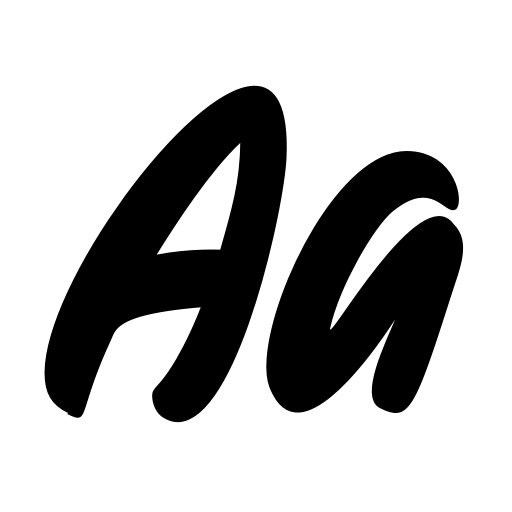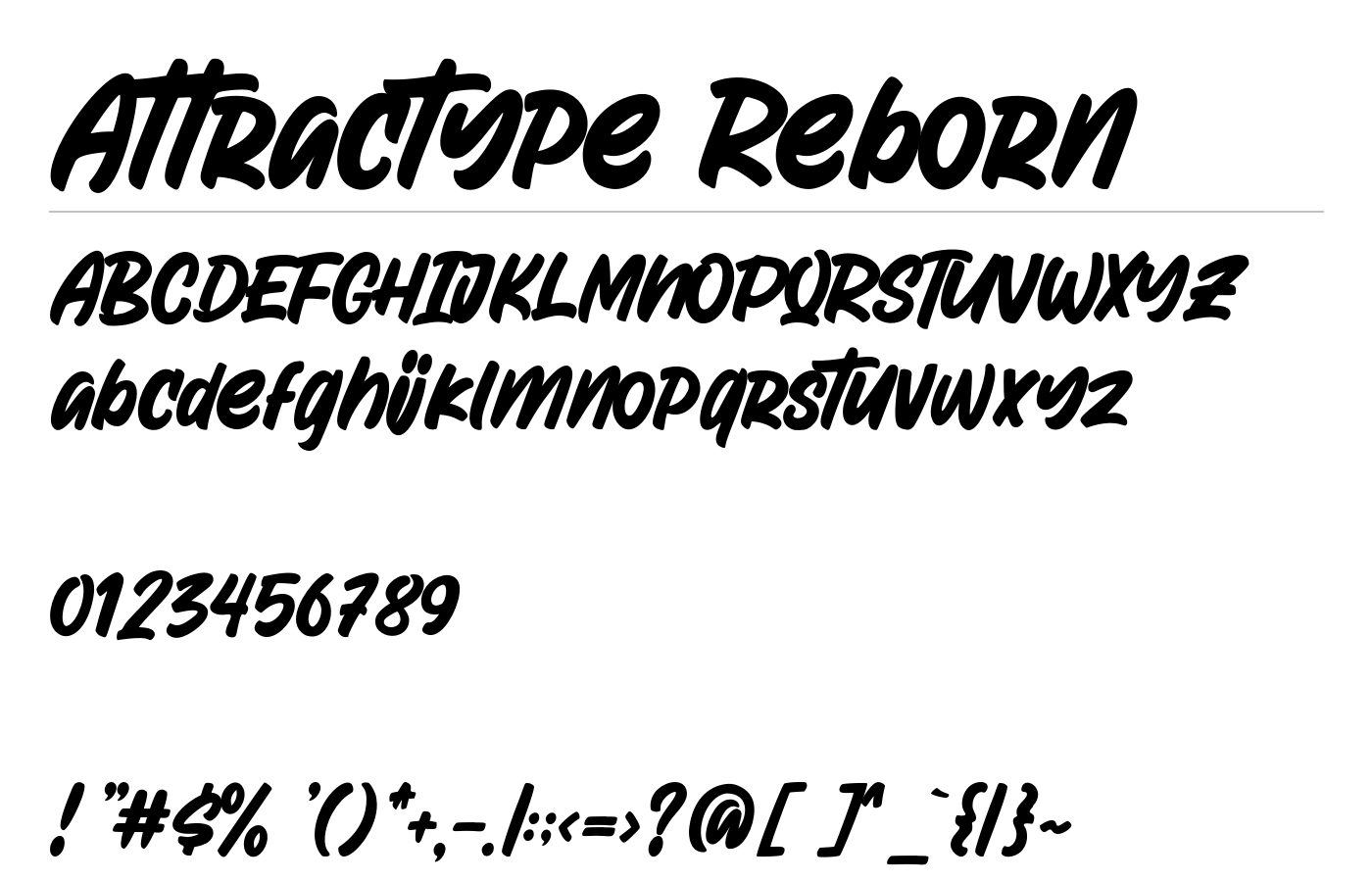
Attractype Reborn is a bold, energetic script font with a playful and casual feel, characterized by its smooth, brush-like strokes and slightly condensed letterforms. Its lively design works well for branding, posters, and headlines where a dynamic and approachable personality is desired, bringing a sense of creativity and friendliness to modern, youthful projects.
Attractype Reborn Font
About Attractype Reborn Font
| Font family | Attractype Reborn Font |